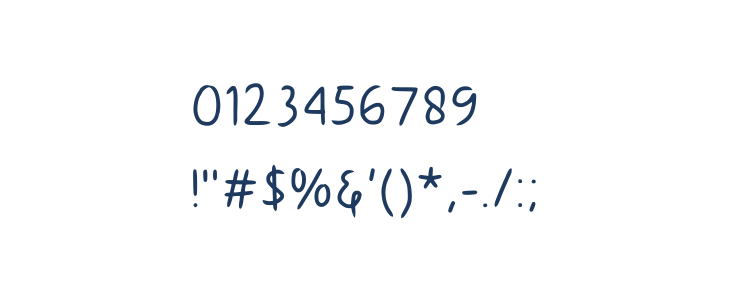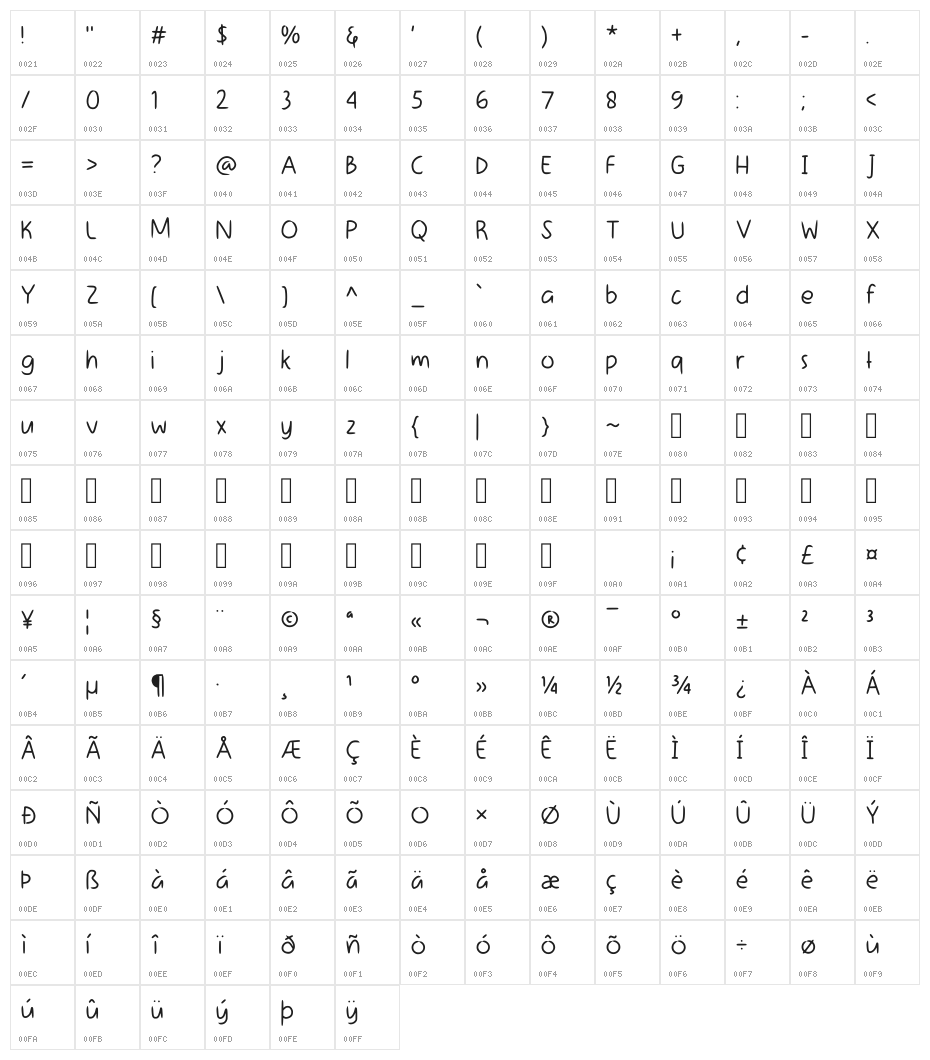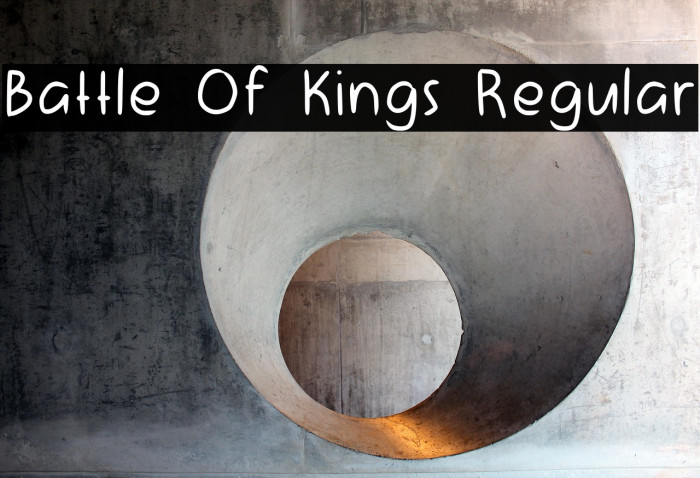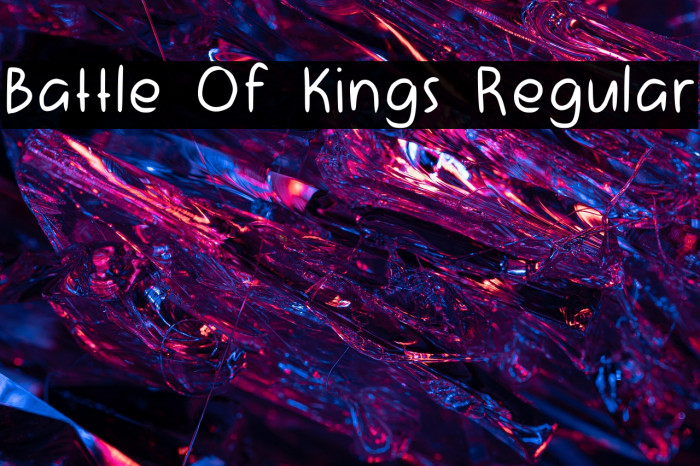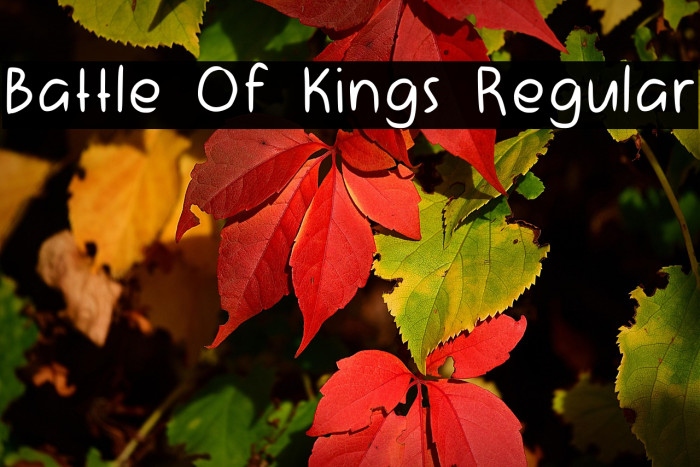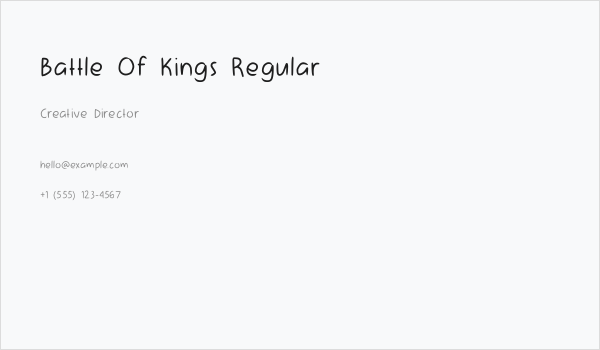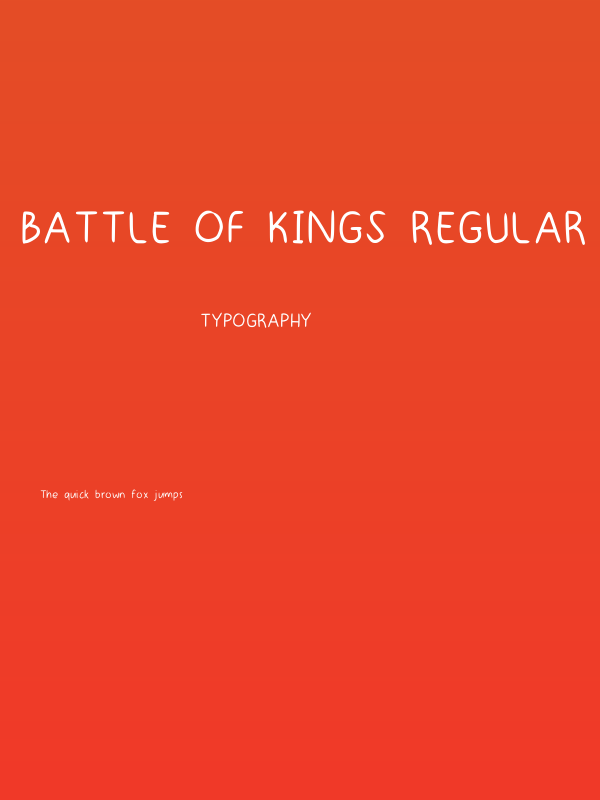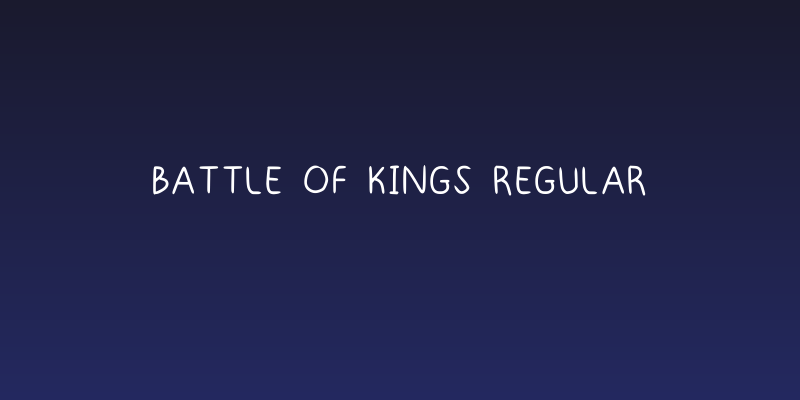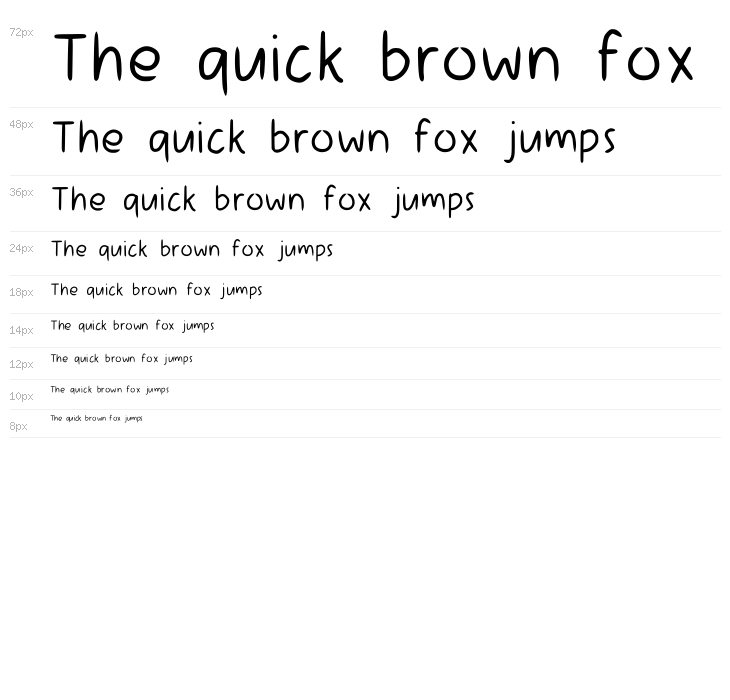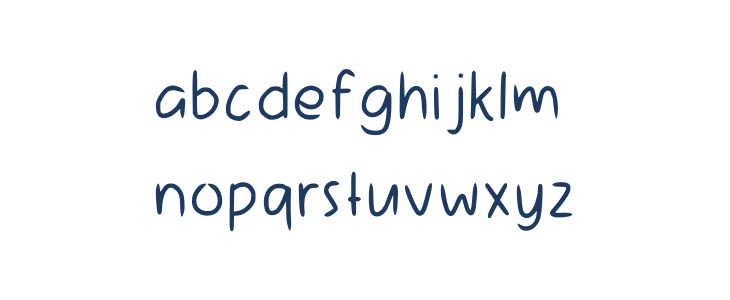
Battle Of Kings Regular Font
Battle Of Kings Regular Description
This font features a playful and casual handwritten style, characterized by its smooth, rounded strokes and slightly irregular letterforms. The uppercase and lowercase letters maintain a consistent flow, giving a sense of informality and approachability. The numerals and special characters are crafted with the same whimsical touch, making them blend seamlessly with the alphabet. Its overall appearance is friendly and inviting, suitable for projects that aim to convey warmth and creativity. The font's simplicity and clarity ensure readability while adding a personal touch to any design.
| Proposed Projects | Ideal for greeting cards, children's books, casual invitations, and creative branding. |